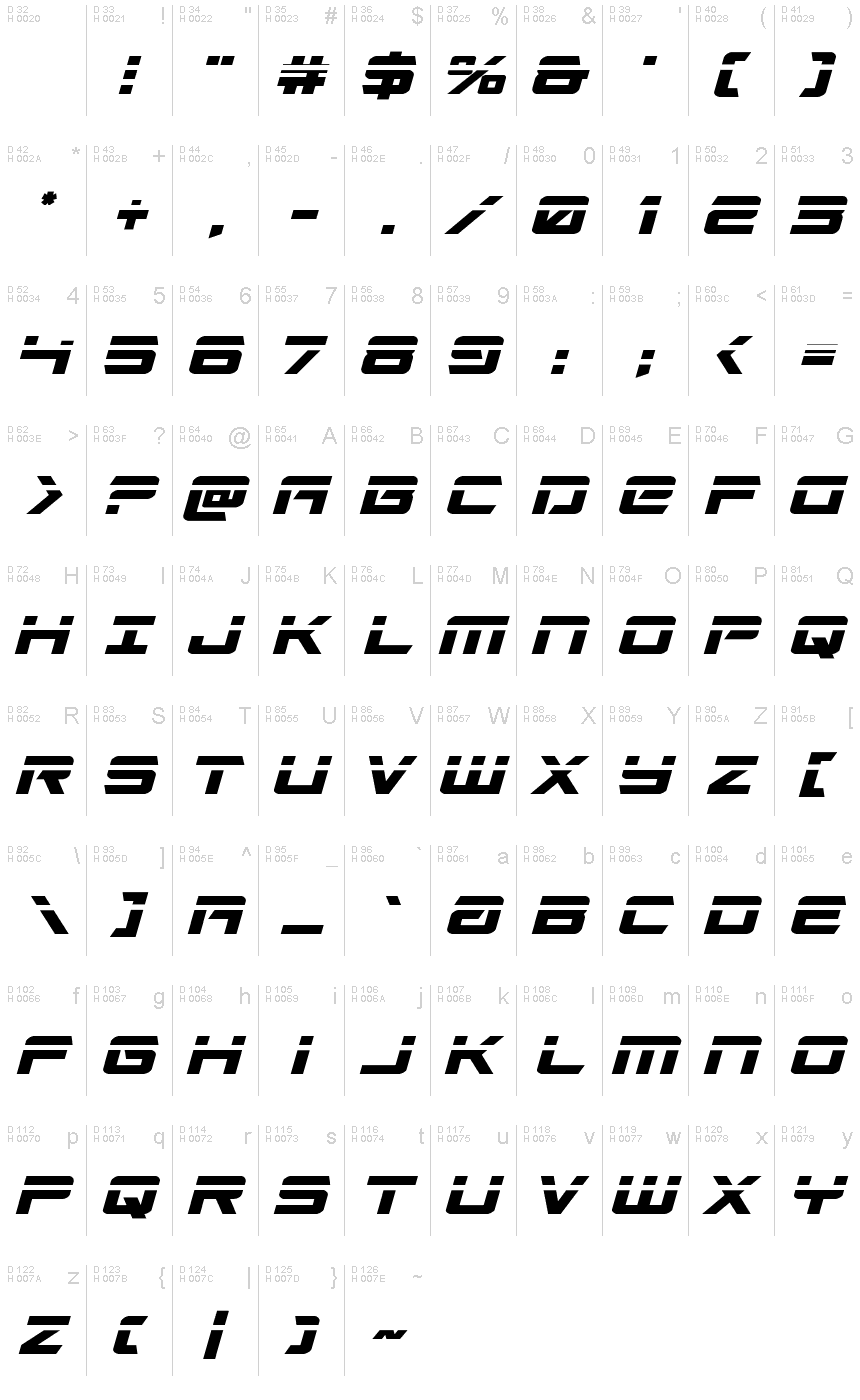
Captain Falcon Laser Italic
Captain Falcon Laser Italic is a bold and futuristic display font from the renowned designer, Iconian Fonts. With its unique and captivating style, this font is perfect for projects that require a cutting-edge and futuristic look. Its bold weight and extra-expanded width make it ideal for creating attention-grabbing headlines, logos, posters, and gaming graphics. Whether you're designing for technology companies, sci-fi movies, or esports teams, Captain Falcon Laser Italic will add a touch of excitement and modernity to your creative endeavors.